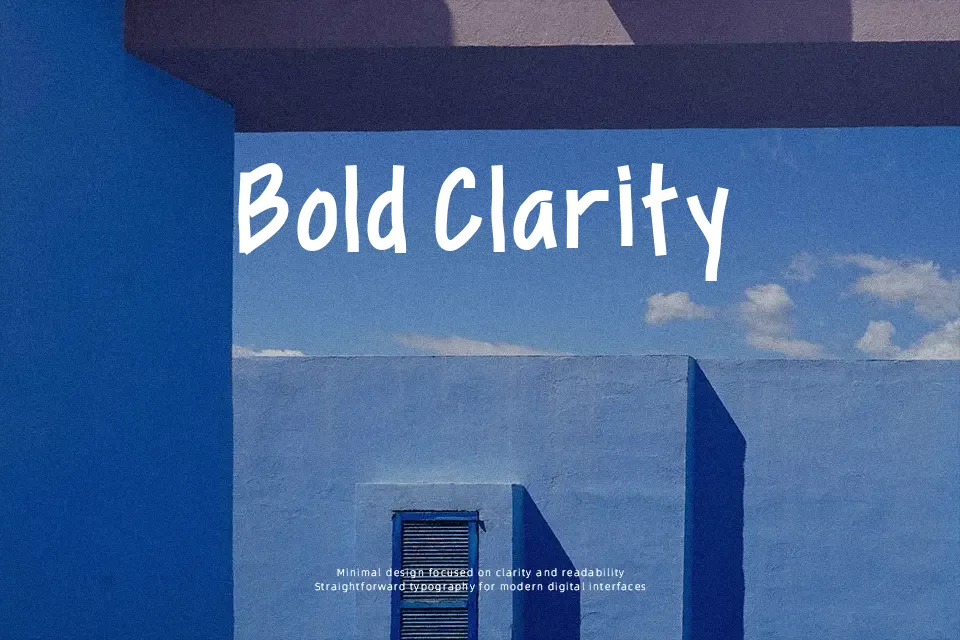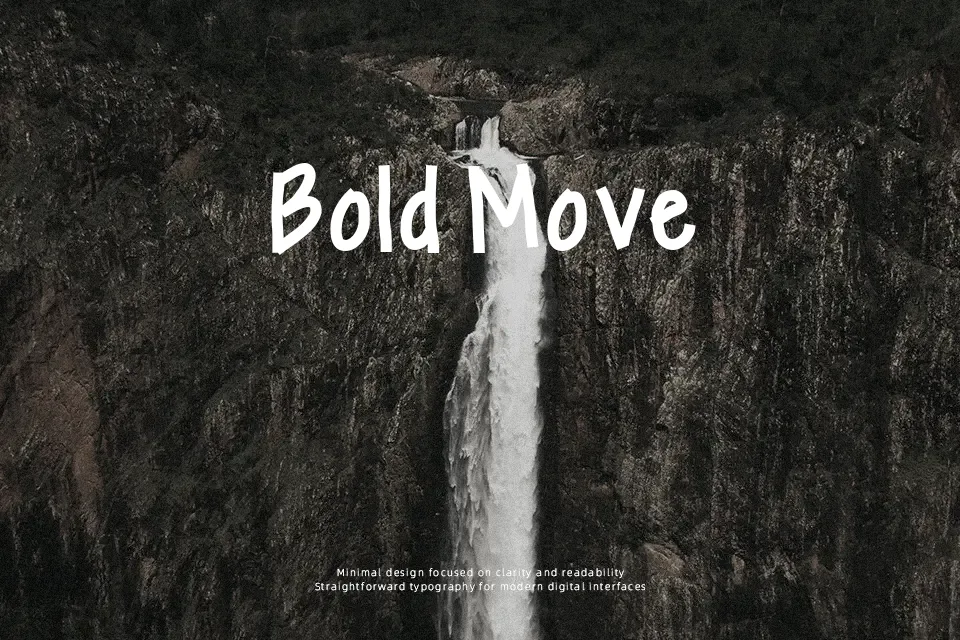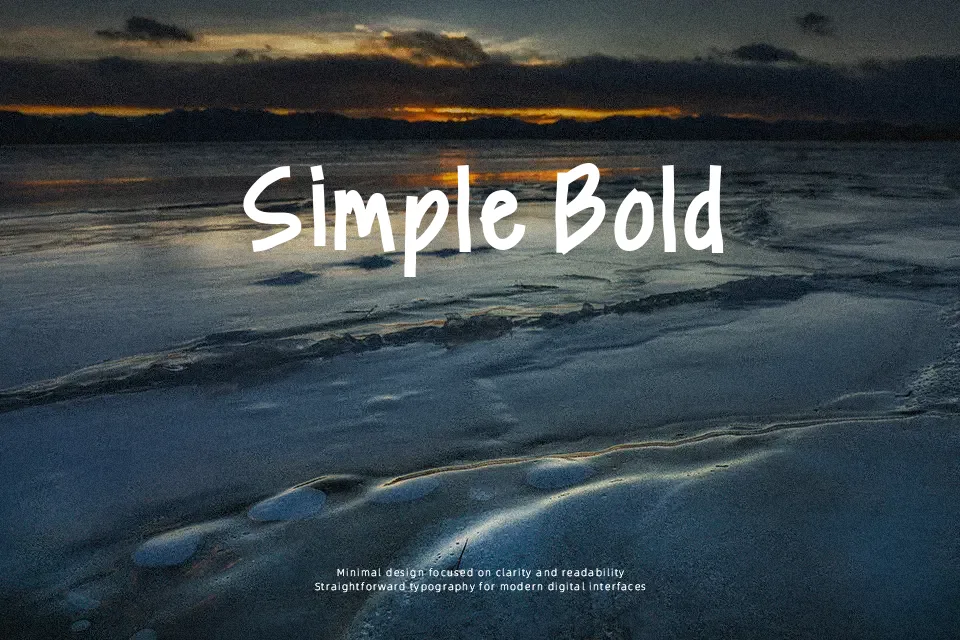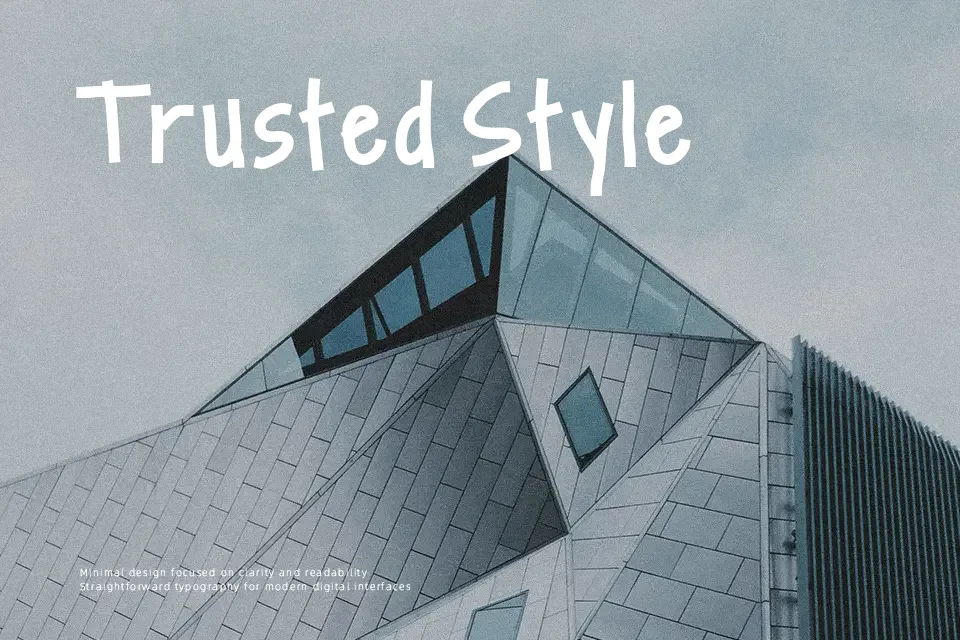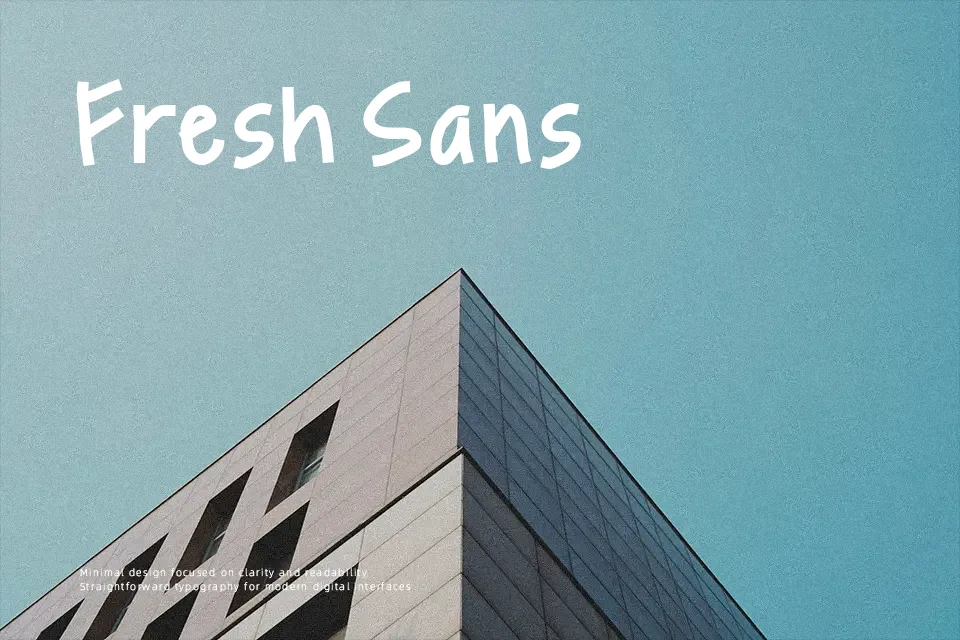
Boboiboy Font
Designed by Bonjour Type
Boboiboy Font is a casual, handwritten comic display face with rounded, uneven strokes, loose letterforms, and slightly irregular spacing that gives text a lively, hand-drawn look. The caps feel chunky and bold, with curves that echo kids’ cartoons and lighthearted merch rather than strict print handwriting. It fits nicely on birthday posters, kids’ YouTube or gaming overlays, playful snack packaging, and character-driven logos where you want something noisy and fun instead of neat and neutral. Because of its informal rhythm and inconsistent texture, it tends to look messy in long paragraphs or small UI labels, so it is better kept for short headlines, tags, and wordmarks. Users who need a calmer comic style may find cleaner rounded sans fonts easier to work with.
kids event posters and banners
cartoon or gaming thumbnails and stream overlays
playful product or snack packaging
headline text on youth-focused branding
body text or long paragraphs
formal corporate or editorial layouts
small UI labels or dense data tables
serious professional documents
Perfect for gaming, kids, and logo, with a artistic and cartoon style.